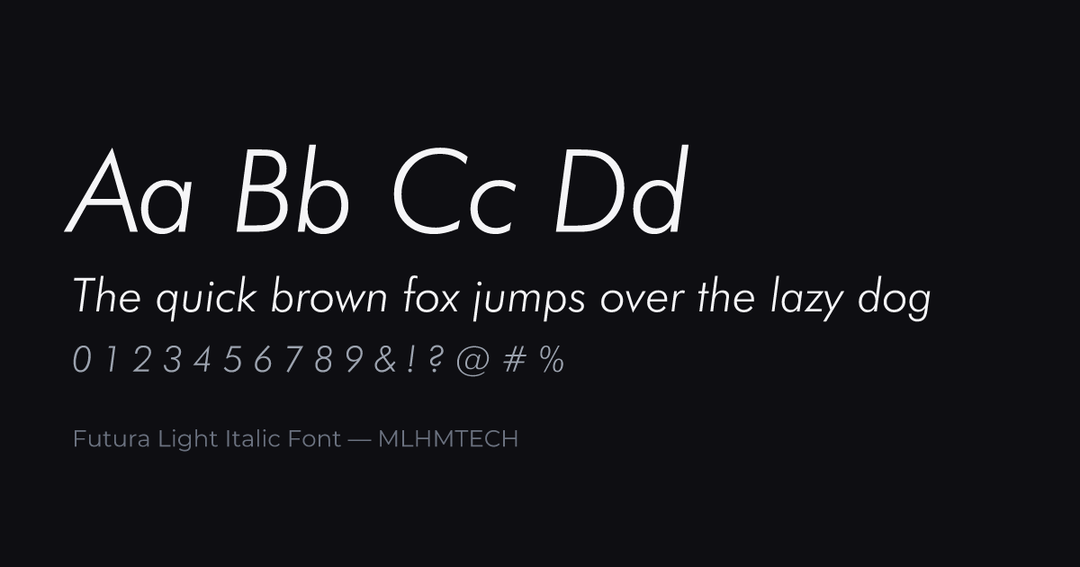
Futura Light Italic Font
Futura Light Italic is a refined sans-serif typeface that adds a touch of sophistication to any project. Ideal for titles, logos, and creative layouts.
Futura Light Italic is a classic geometric sans-serif font with a light weight and elegant italic slant. Its clean lines and modern proportions make it versatile for both print and digital media.
This font is perfect for creating stylish titles, subtitles, and branding elements. It pairs well with bold fonts for contrast and works beautifully in minimalist designs.